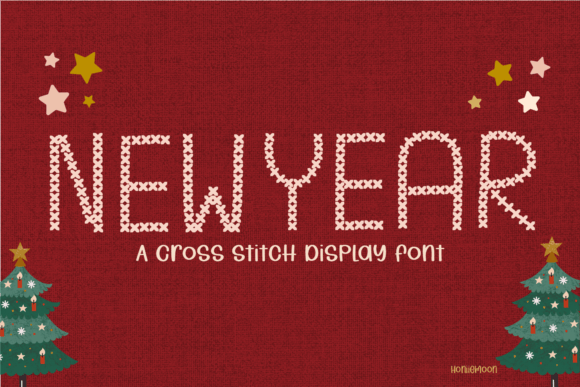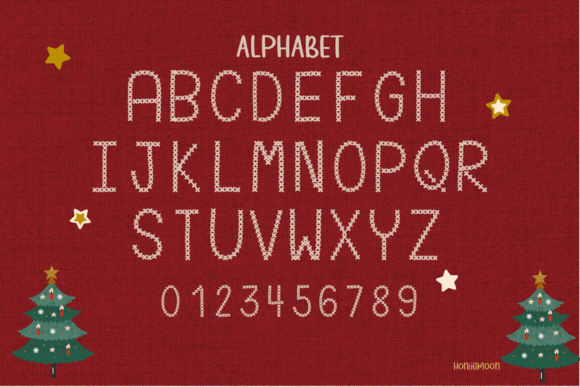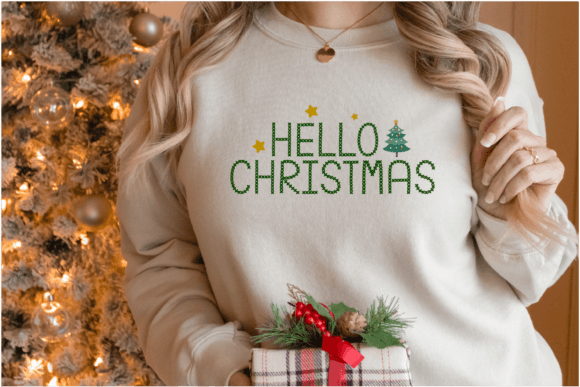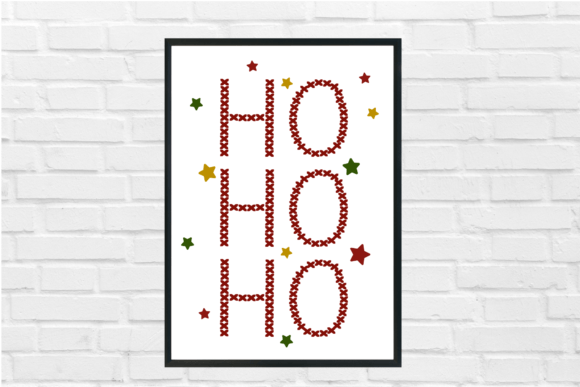
New Year Font
“New Year” is a charming cross-stitch display font that weaves tradition and creativity seamlessly. With its carefully crafted stitches, this font brings a nostalgic touch to your designs, reminiscent of handmade crafts and cozy holiday celebrations. Ideal for festive projects, greeting cards, or adding a personalized feel to your creations, New Year captures the spirit of warmth and tradition in every stitch. Celebrate the art of crafting with this delightful and versatile cross-stitch font.